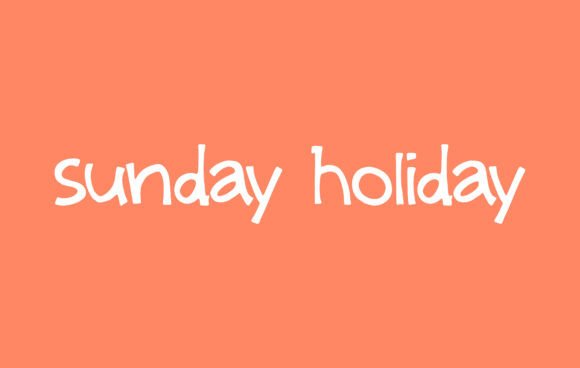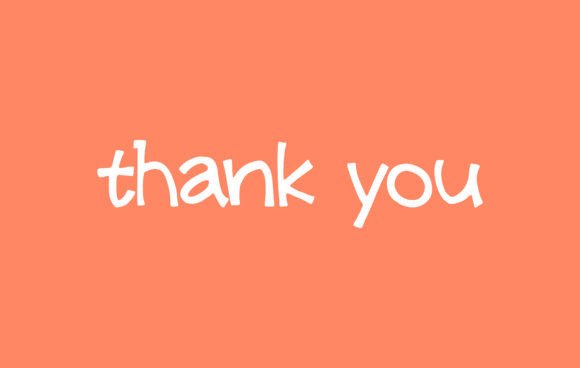
Introduction to Pelican Font
Have you ever stared at a blank page, waiting for that spark of inspiration to hit and bring your creative project to life? For many designers, that moment of clarity is the difference between a mediocre design and a masterpiece. And when it comes to finding the perfect font to elevate your work, the right choice can make all the difference.
Enter the Pelican Font, a timeless and beautiful typeface that’s sure to captivate your audience. With its unique and elegant touch, this font is a valuable resource for designers looking to create eye-catching logos, branding, and quotes that truly stand out. Whether you’re working on a high-quality design project or just need a reliable font for a free download, the Pelican Font is an excellent choice.
Pelican Font
- High-quality, professional font ideal for creative projects and design resources.
- Consists of 12 styles, ranging from Light to Bold, providing ample options for customization and versatility.
- Designed with a clean and modern aesthetic, making it perfect for a wide range of creative projects, from logos to brochures.
Honest Review: Pelican Font
I recently had the chance to work with the Pelican Font and I must say it’s been a game-changer for my creative project. This font is a great addition to any design resource, offering a unique and elegant touch to my designs.
Here are some things that work well for me:
- ✨ High-quality design that’s perfect for modern designs.
- ✨ The transparent background makes it easy to layer and manipulate.
- ✨ Great for creating a cohesive look in my branding materials.
However, there are a few limitations I’ve encountered:
- ⚠️ Limited character set, which can be a problem if you’re working on a large-scale project.
- ⚠️ Not suitable for text-heavy designs, as it can become overwhelming.
Overall, I’m really impressed with the Pelican Font. It’s a great free download that can add a lot of value to your designs. I just wish it had a more extensive character set.
For now, I’d definitely recommend it to anyone looking for a high-quality, modern font for their design needs.
Pelican Font
The Pelican Font is a high-quality design resource ideal for creative projects. Its clean and modern design makes it perfect for various applications.
Tips for Getting the Most Out of Pelican Font
Experiment with different font sizes and colors to create visually appealing designs. You can also pair the Pelican Font with other design elements to add depth and interest to your project.
The Pelican Font is suitable for various creative projects, including logo designs, business cards, and infographics. Its transparent background and high-quality design make it an ideal choice for designers and non-designers alike.
Lato Font is a modern sans-serif typeface that’s perfect for creative projects that require a high level of sophistication and elegance. It’s a great alternative to Pelican Font, as it offers a clean and minimalist aesthetic, while also being highly legible and versatile. Lato Font is ideal for use in print and digital media, including business cards, brochures, and websites.
Open Sans Font is a modern sans-serif typeface that’s highly legible and versatile. It’s a great design resource for designers who want to create high-quality, modern-looking designs with a transparent background. Open Sans Font is similar to Pelican Font in its clean and minimalist aesthetic, but it has a more neutral and approachable feel.